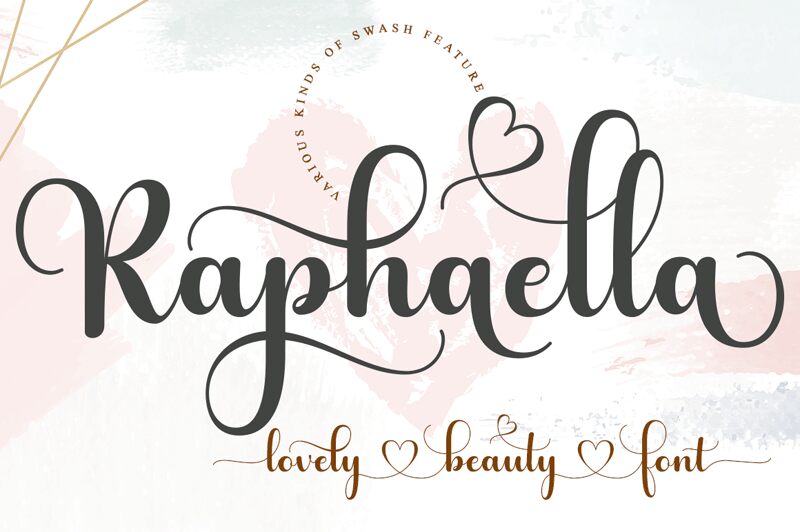
Raphaella
Raphaella font by Fadlilah Studio is a romantic cursive typeface taking the best out of the calligraphy style. Its flowing curves with thin and smooth strokes radiate elegance, with a touch of royal flair. Letters are connected to each other for a standalone informal mood that complements any casual design piece.
Perfect for wedding design, Raphaella looks amazing on invitation cards or menus. Designers also opt to include it in branding & packaging projects, magazine covers, social media posts & more.